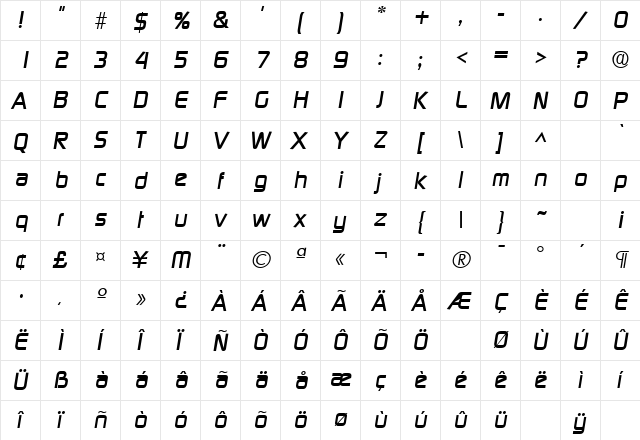
Digital Italic
Design Context for Digital Typeface
Digital channels digital-age aesthetics through its sharp, structured letterforms — ideal for brands that want to signal innovation. The slanted form adds forward momentum and visual energy.
Pro Tip: Use Digital in combination with a neutral sans for body text. Let it define the brand voice in headlines while keeping reading comfortable elsewhere.